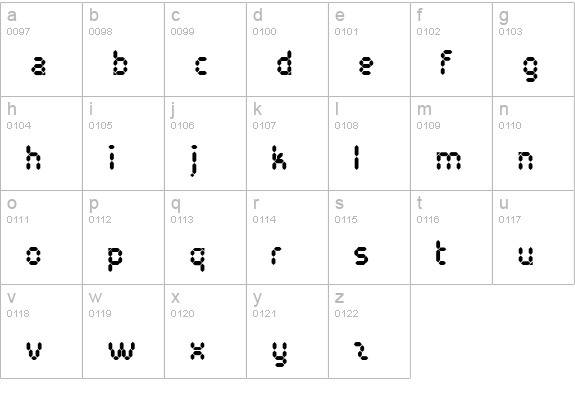
Pocket Calculator Font Details
Introducing the captivating and versatile Pocket Calculator font, a perfect blend of modernity and functionality. This incredible typeface is designed to bring a touch of sophistication and precision to any project, making it the ideal choice for a wide range of design purposes. With its sleek and clean lines, Pocket Calculator font exudes an air of professionalism and efficiency. Each letter is meticulously crafted to ensure impeccable legibility, even at smaller sizes. Whether you're designing a logo, creating eye-catching headlines, or crafting a visually stunning poster, this font will effortlessly enhance your work with its timeless appeal. What makes Pocket Calculator font even more remarkable is that it is completely free. Yes, you read that right! This extraordinary font is freely available to download at FontsMarket.com, making it accessible to designers and enthusiasts alike. With its freedom to download, Pocket Calculator font enables you to take your creativity to new heights without breaking the bank. Say goodbye to expensive font licenses and hello to a world of possibilities. So why wait? Unlock the potential of your designs with the Pocket Calculator font. Download it today at FontsMarket.com and experience the seamless integration of modernity and functionality in your projects.